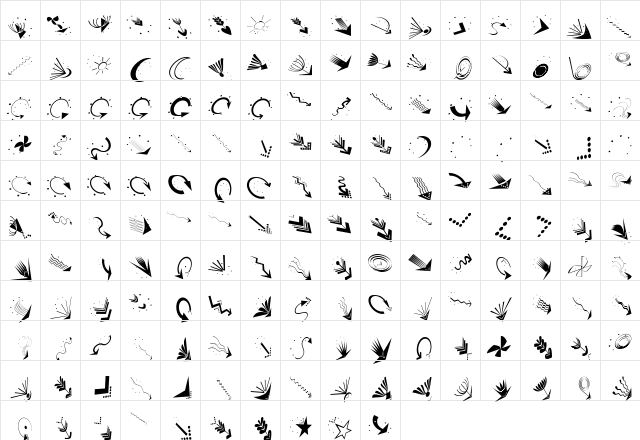
ArrowbixTwoDown Regular
Design Context for ArrowbixTwoDown Typeface
ArrowbixTwoDown is a composed and adaptable typeface that performs quietly and consistently across a wide range of design contexts.